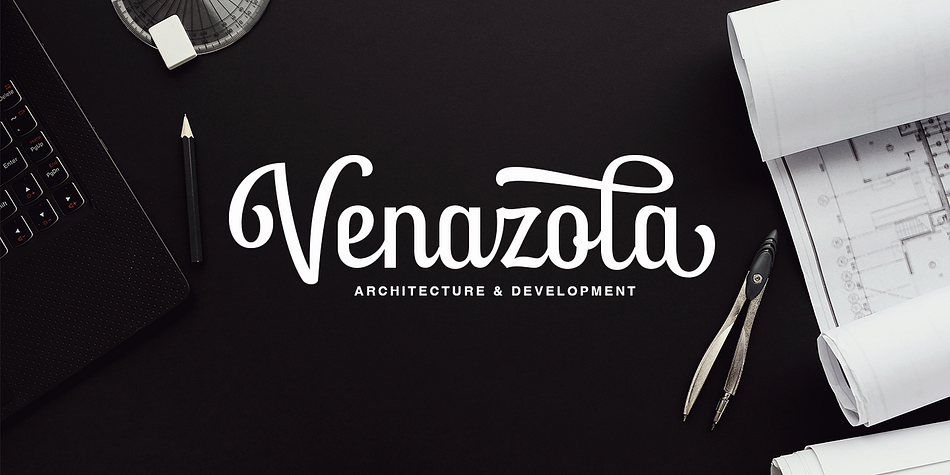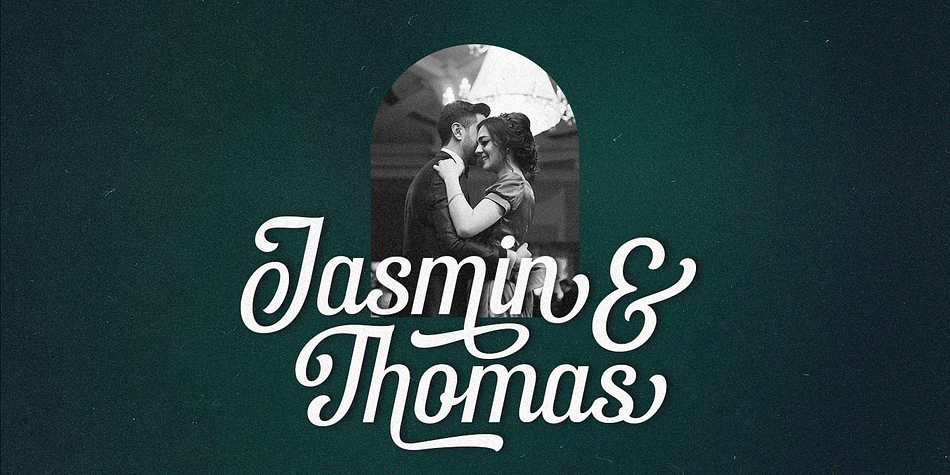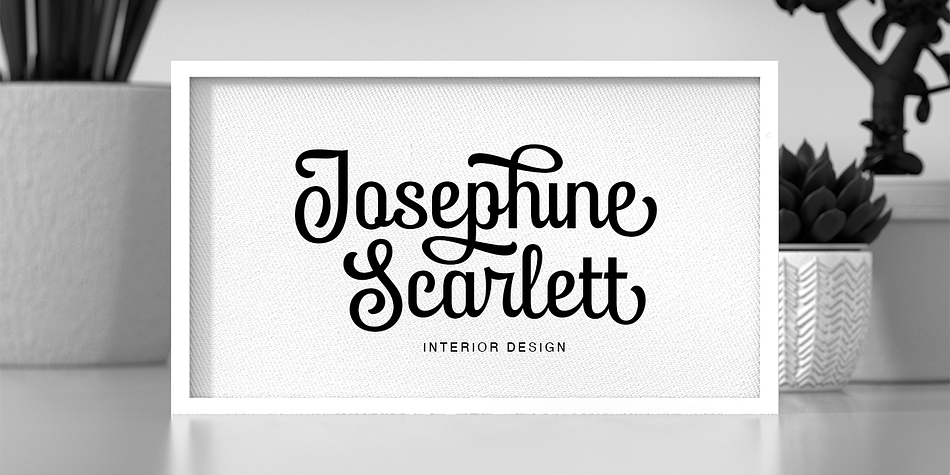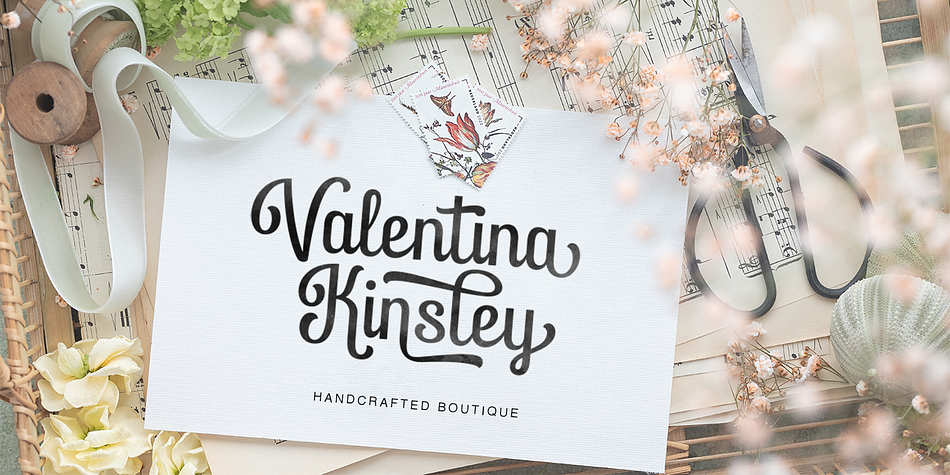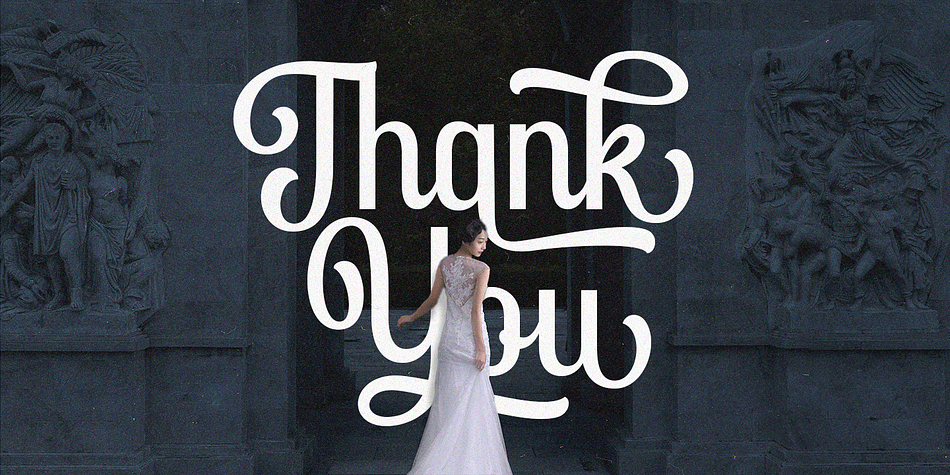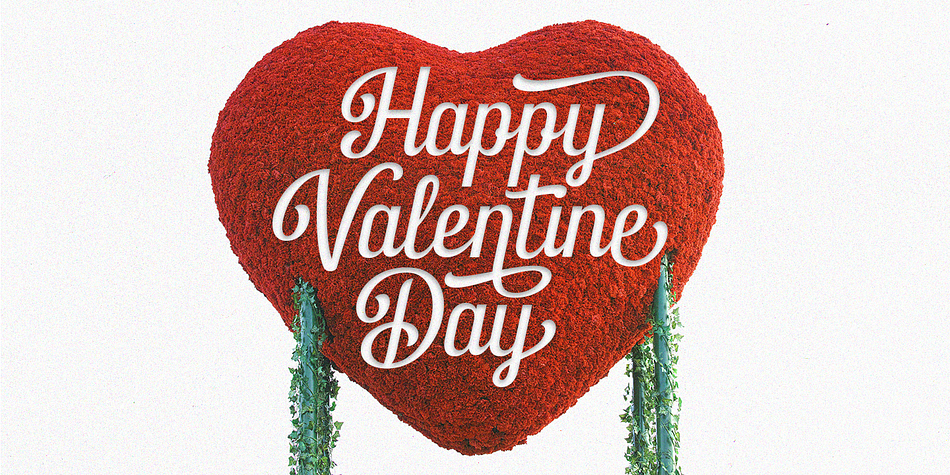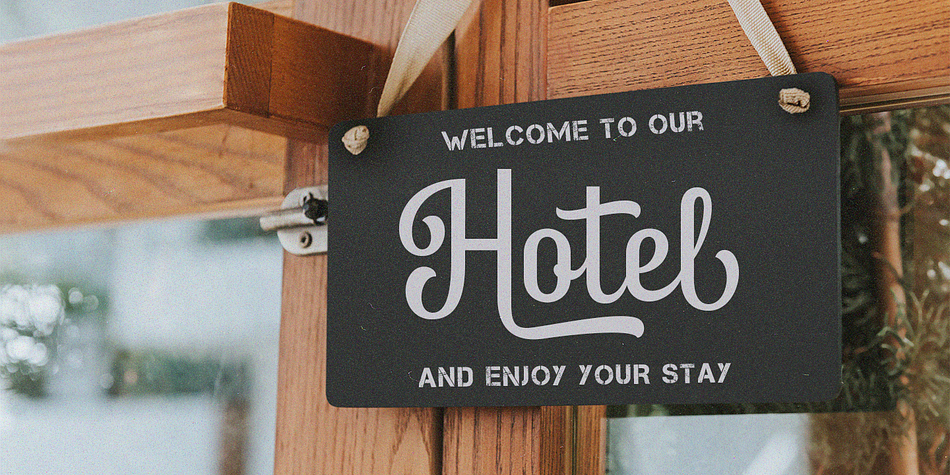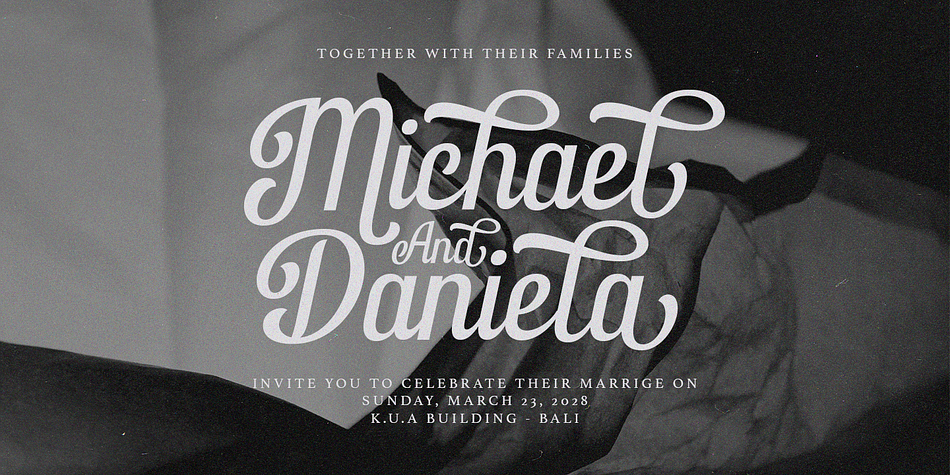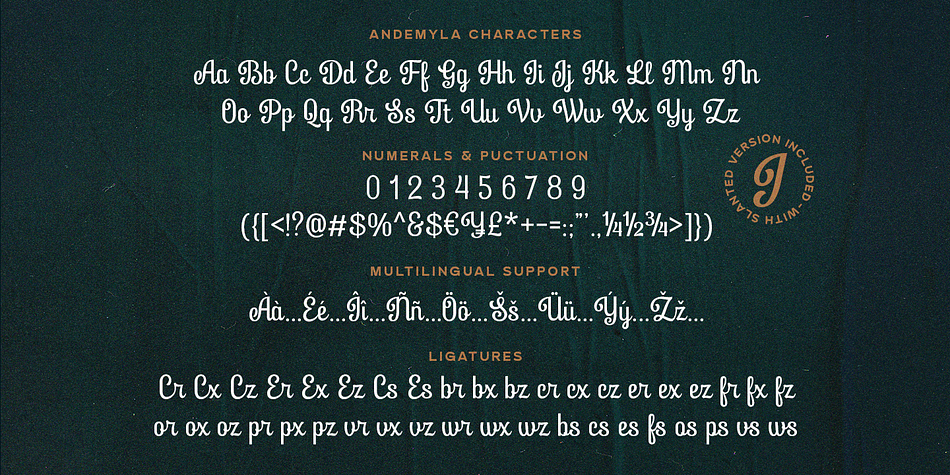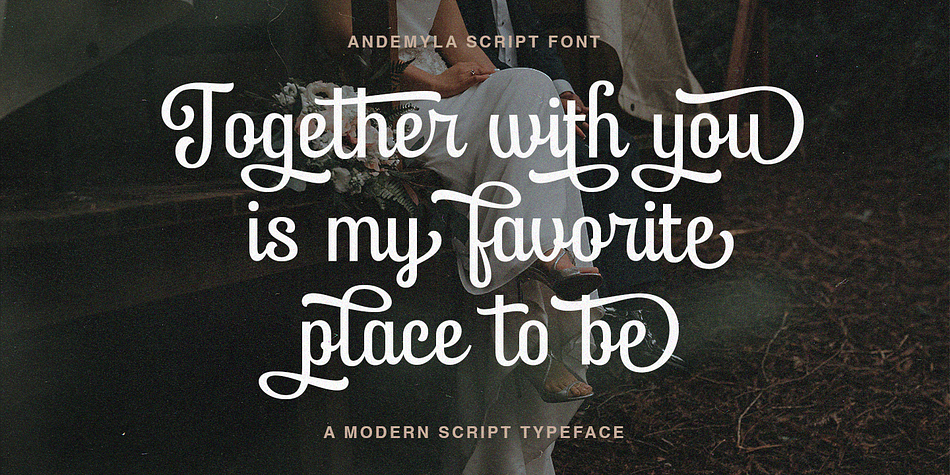
Andemyla
Andemyla is a brush script font family. This typeface has two styles and was published by Fargun Studio.
Andemyla Script - A new fresh and modern script font with decorative characters and a dancing baseline. So beautiful on invitation like handicraft, greeting cards, branding materials, business cards, quotes, posters, and more design concepts.
Unique ligatures
Unique alternates
Stylistic sets
Basic Latin A-Z and a-z
Numbers
International Symbols included
Punctuation